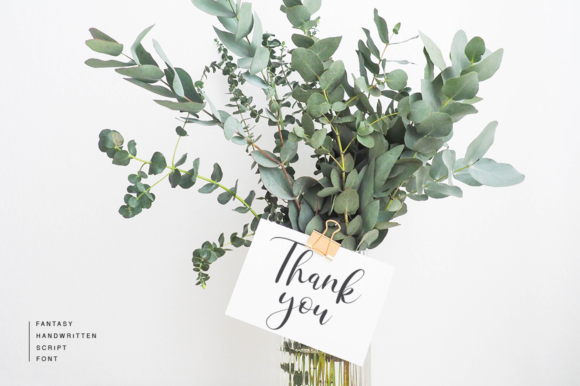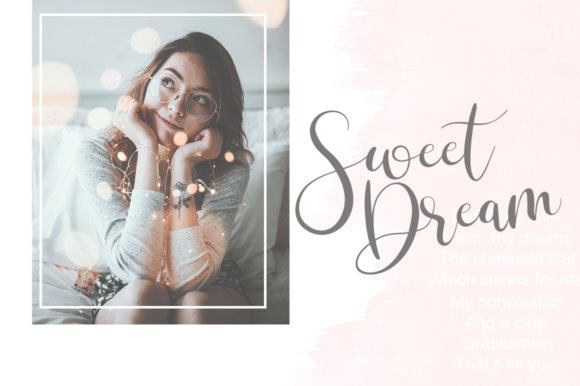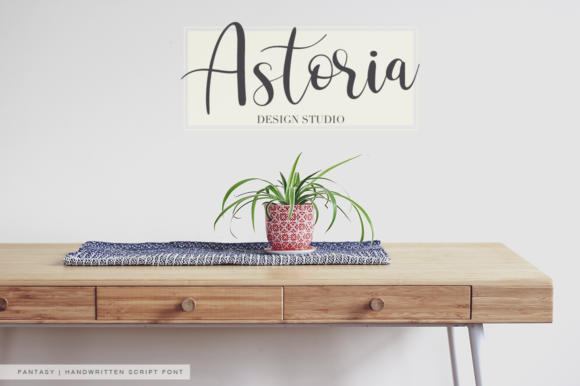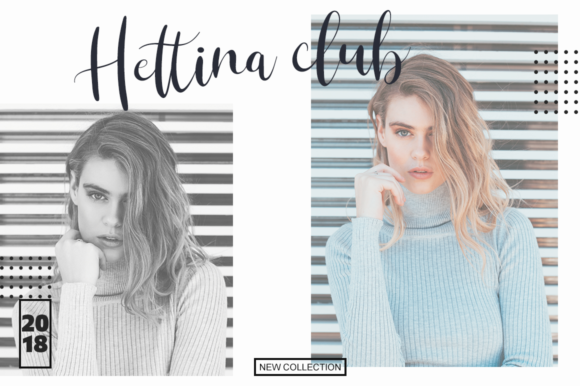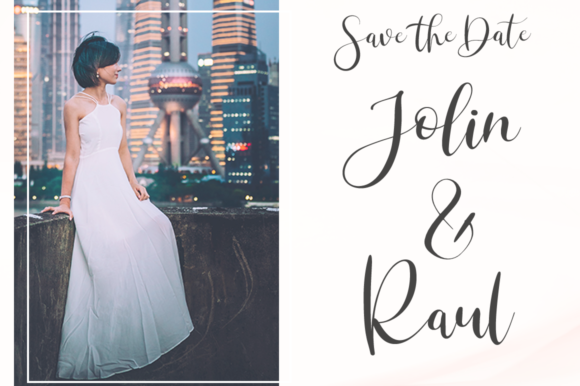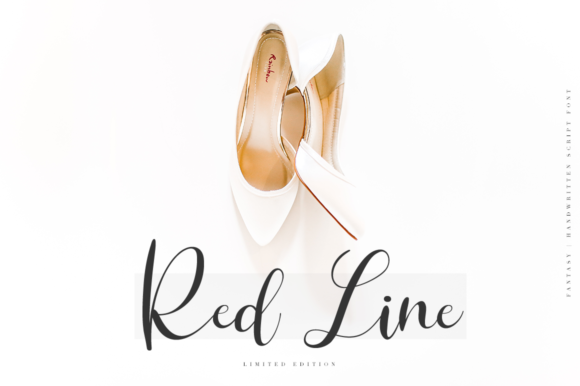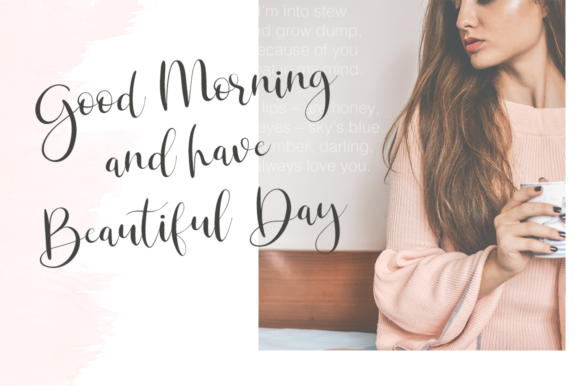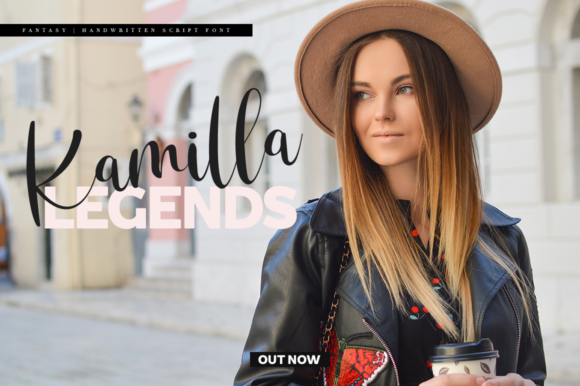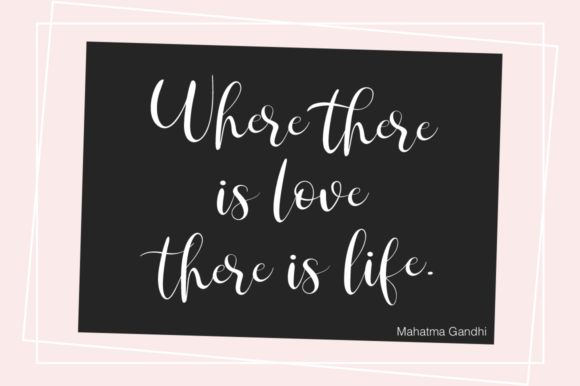
Fantasy Font
About Fantasy Font
Fantasy is a beautiful handwritten script font. Fantasy will give your design a feminine and elegant feel.
With its unique letters, Fantasy works great for multiple designing needs.